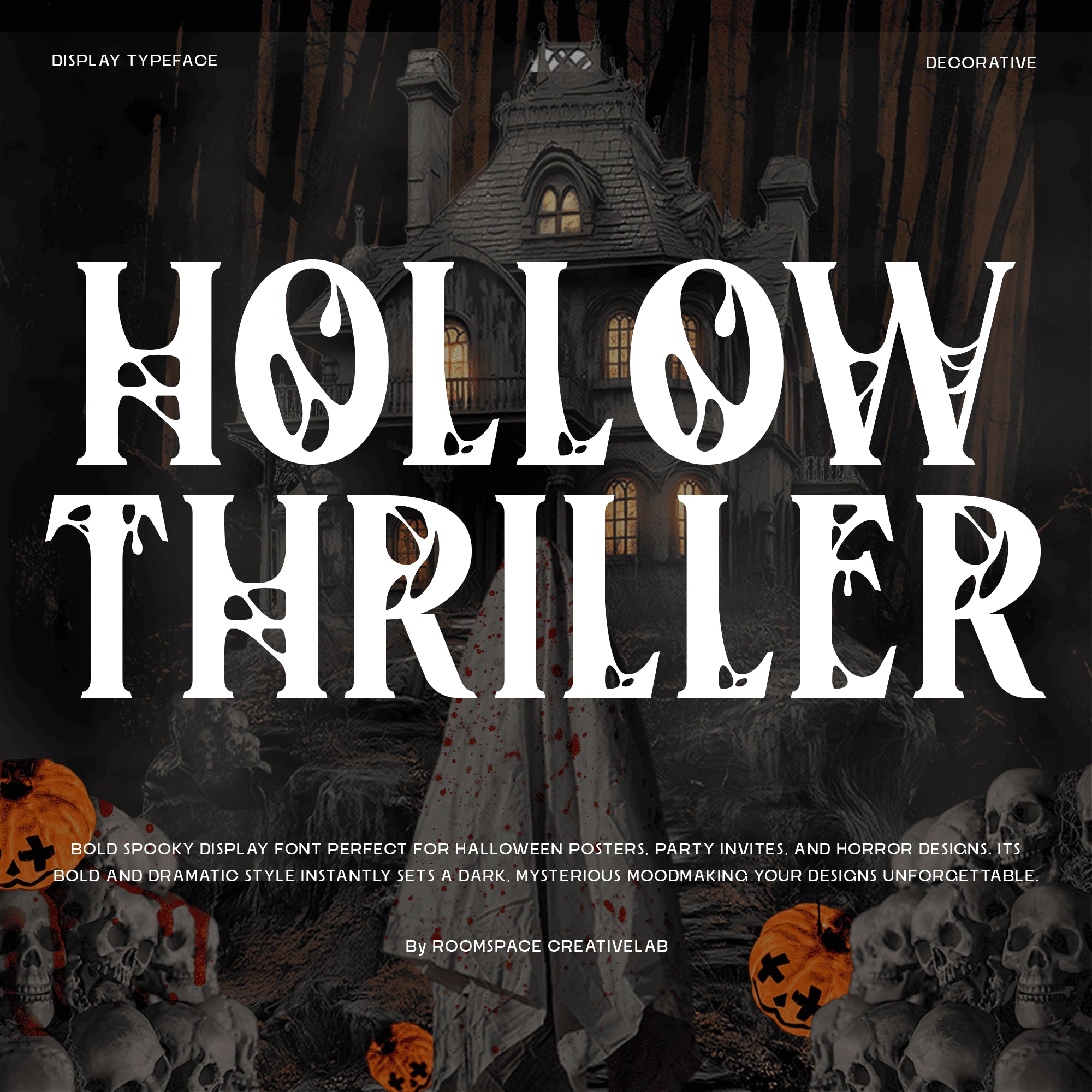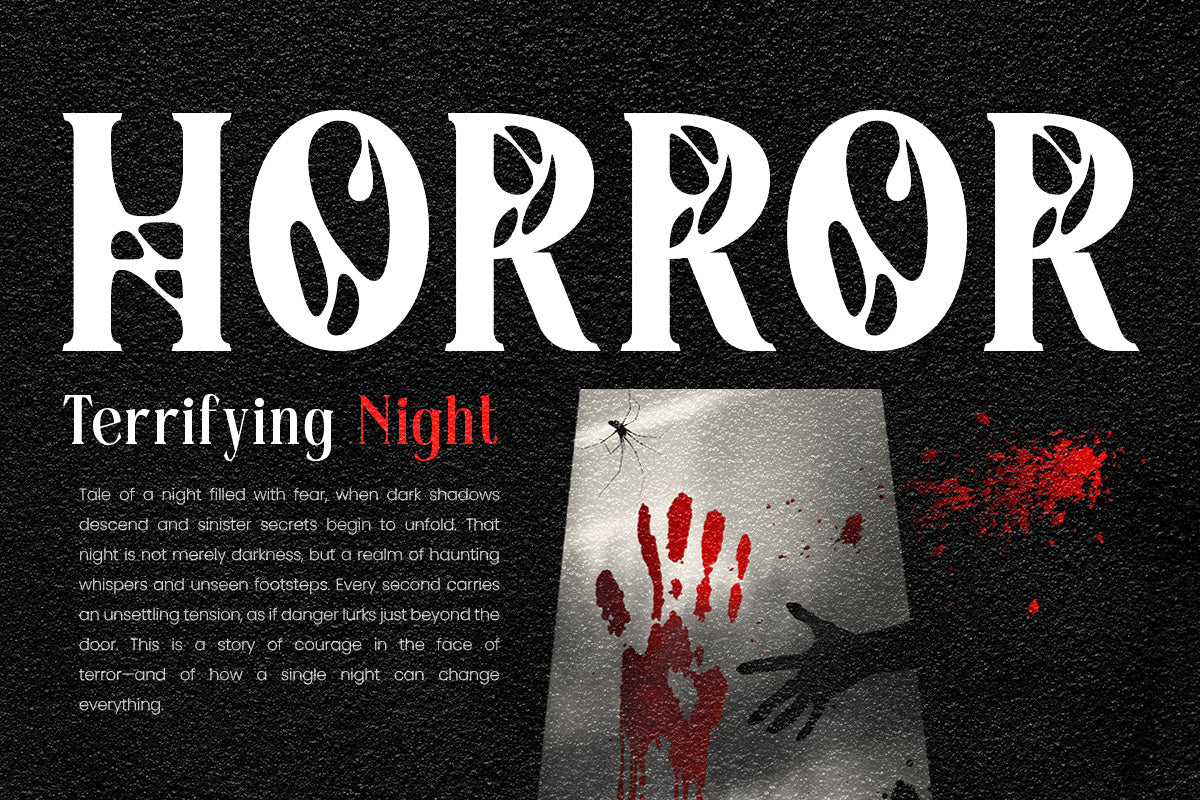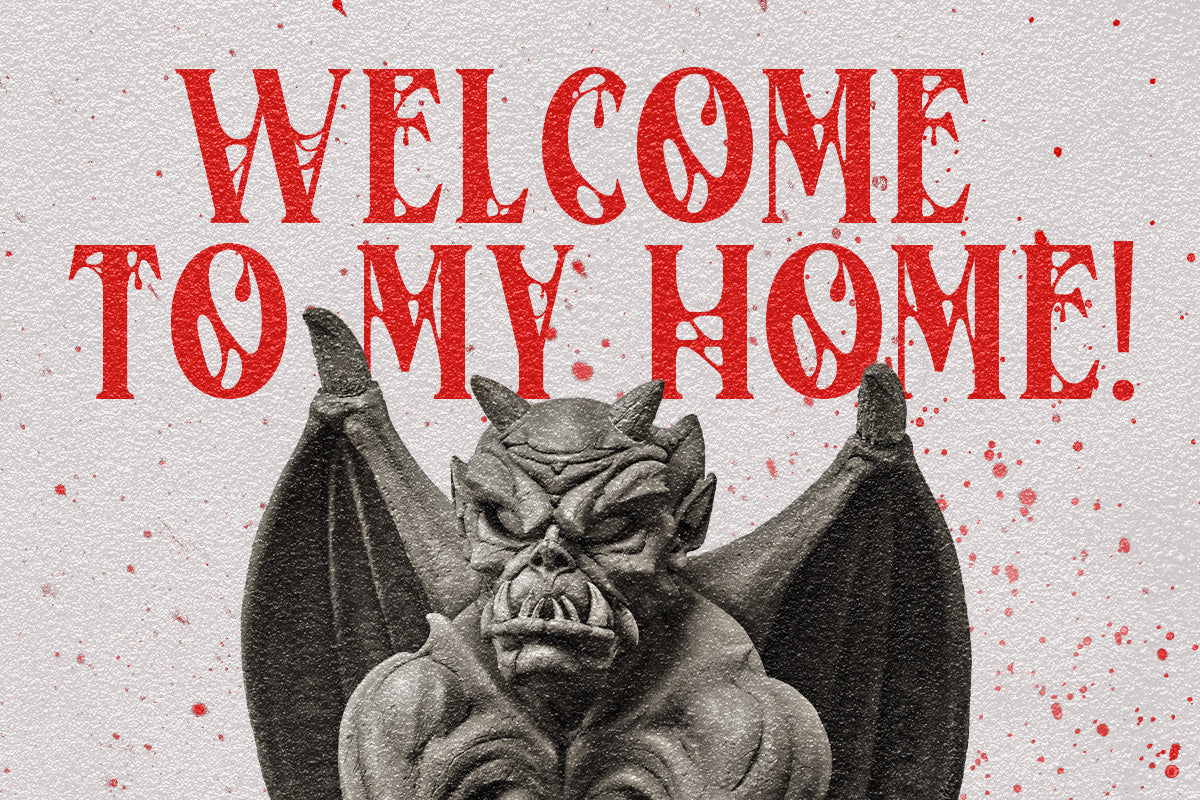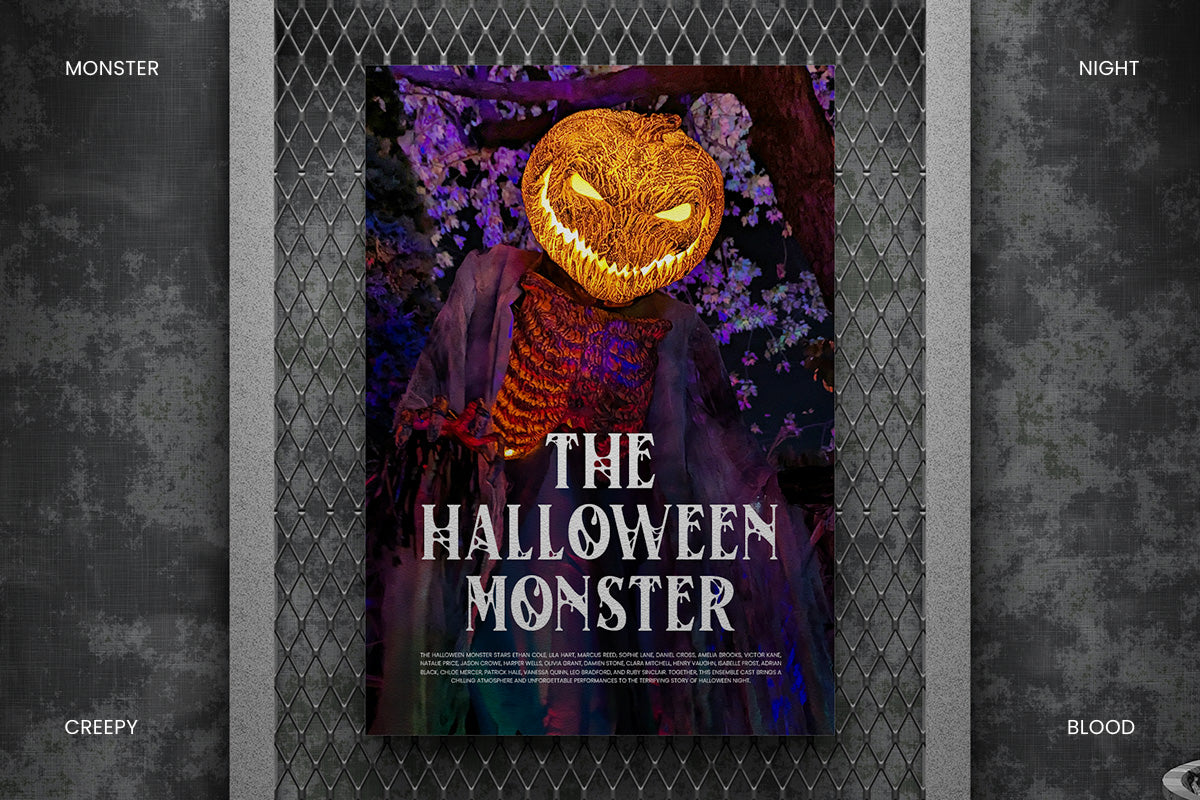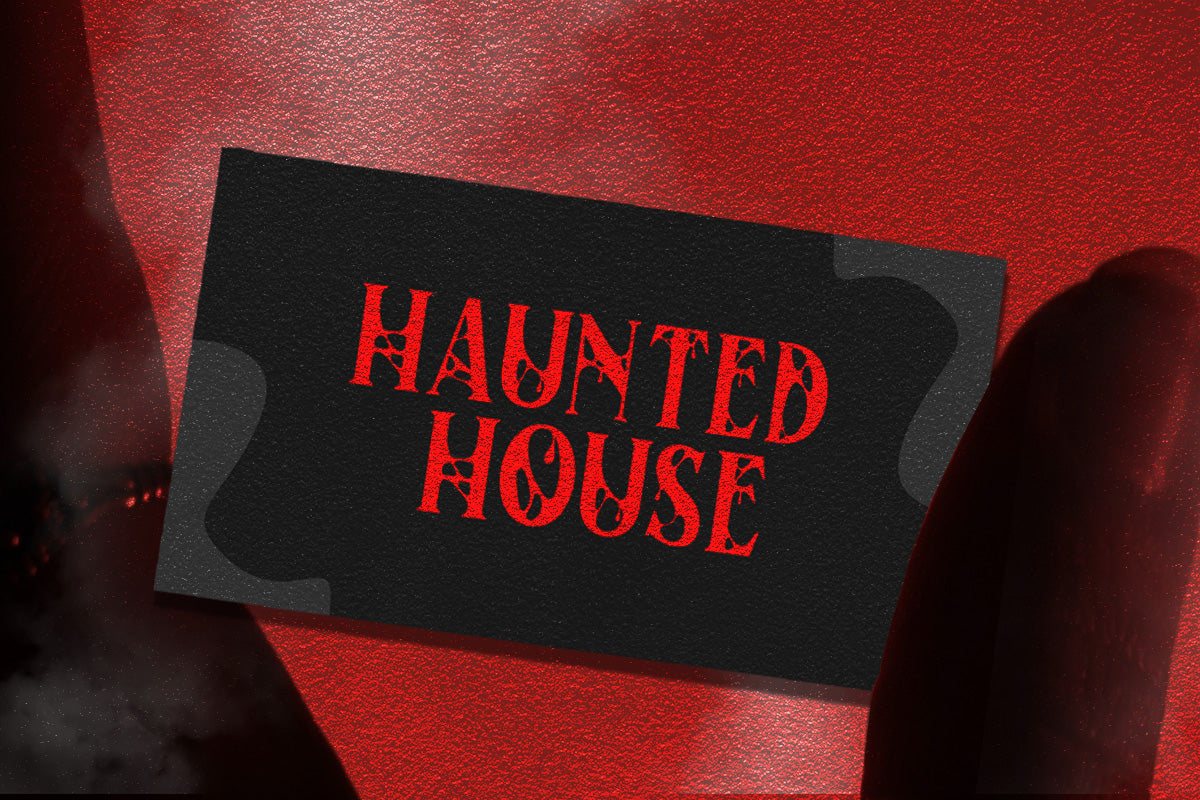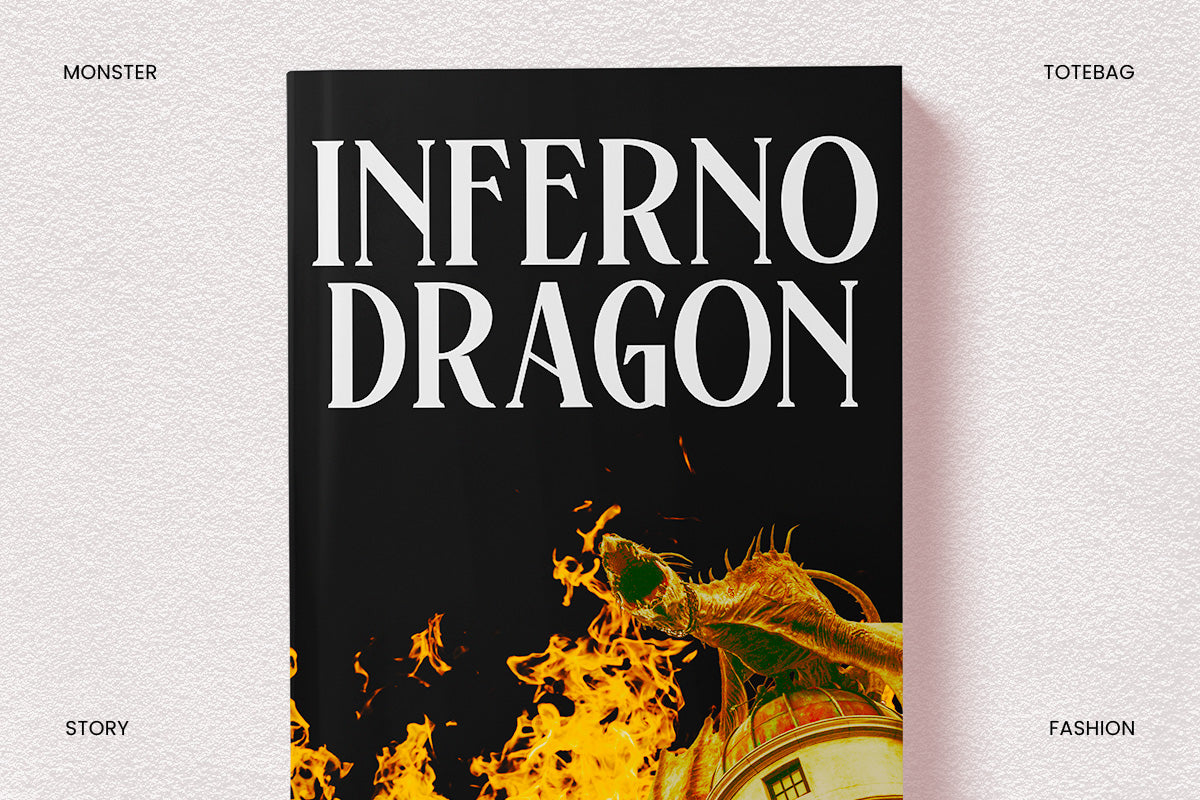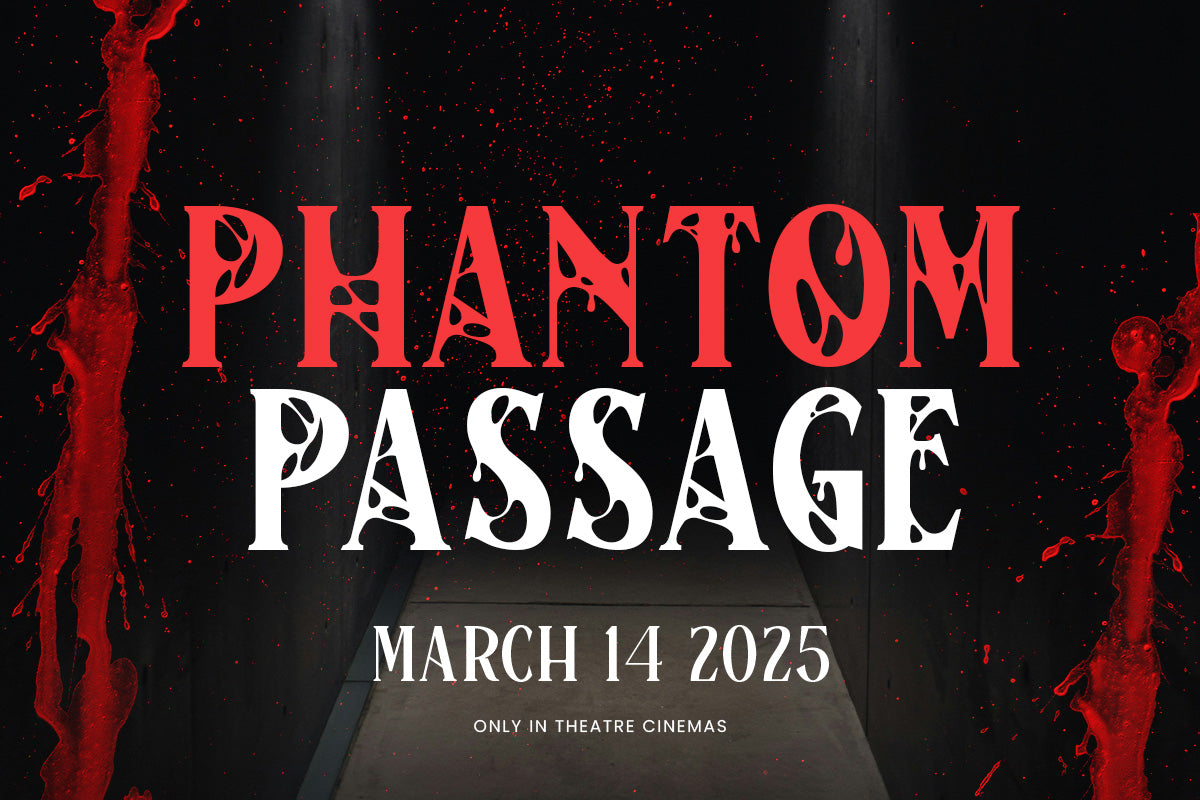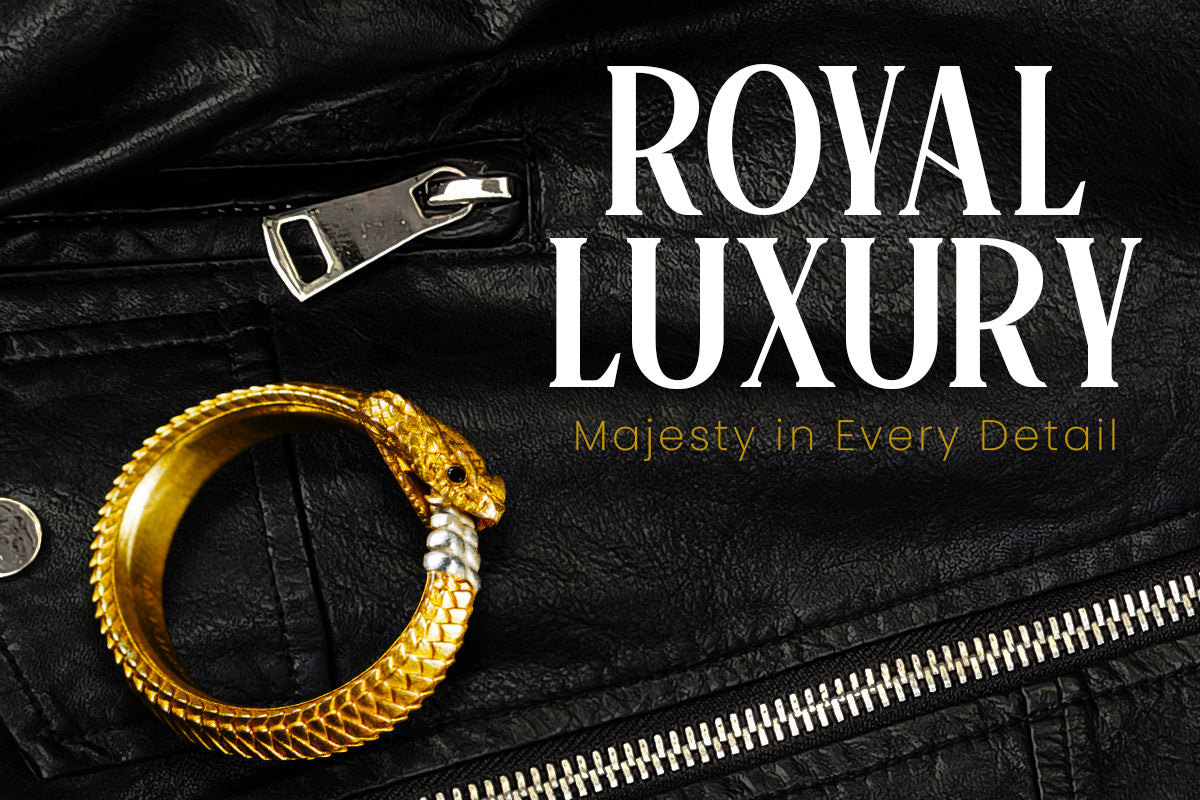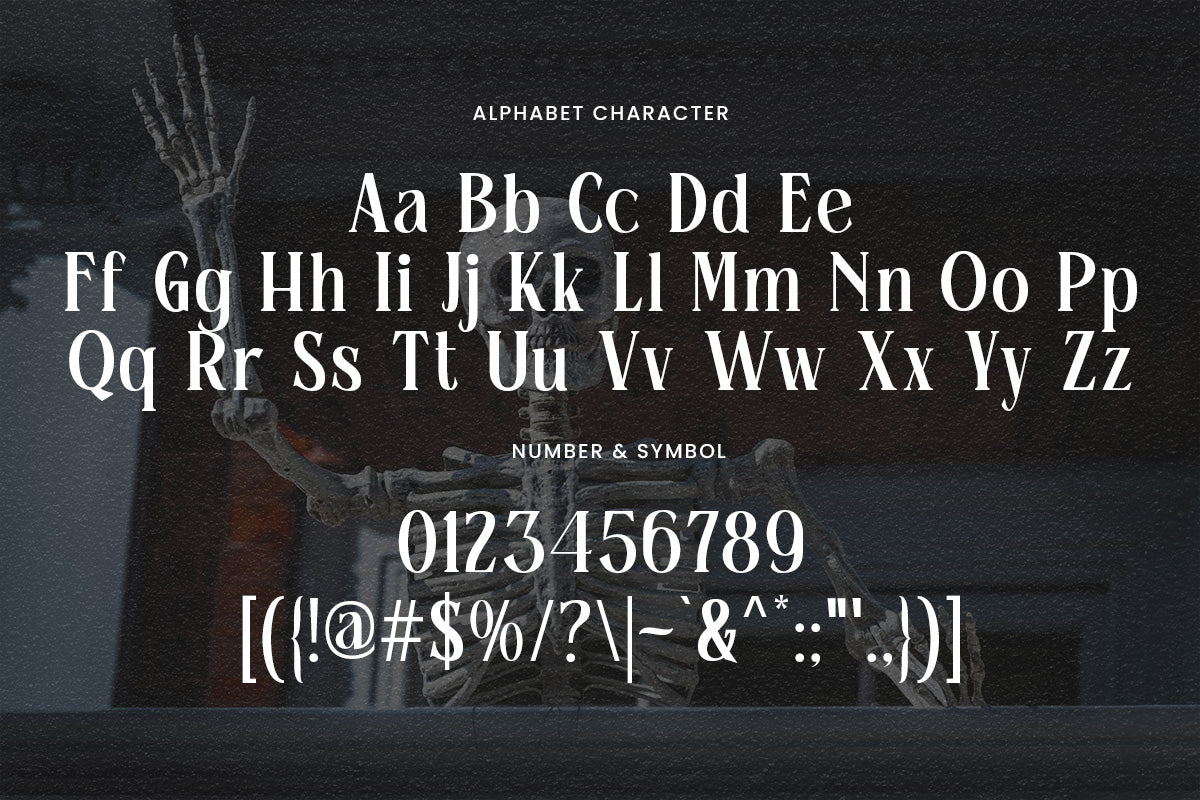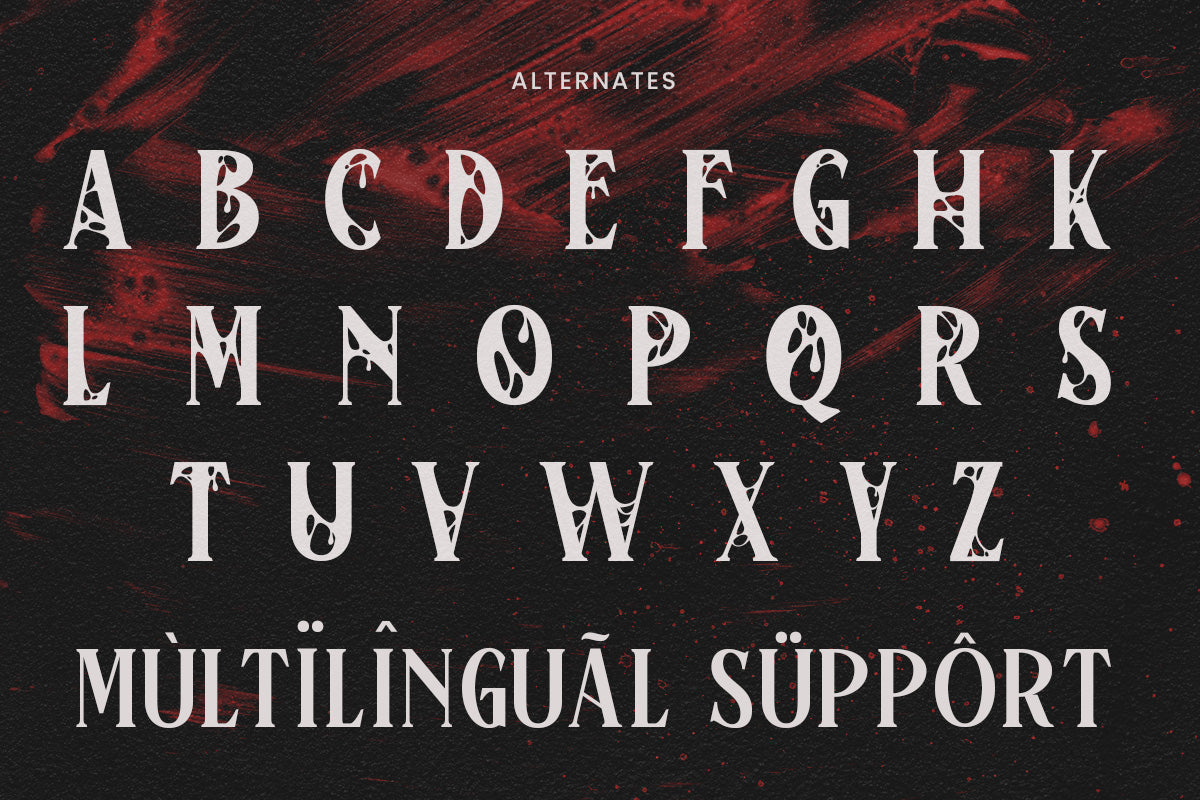
Hollow Thriller – Spooky Halloween Display Font
Hollow Thriller is a bold and haunting display typeface designed to deliver instant Halloween atmosphere through striking, eerie letterforms. Inspired by classic horror visuals and cinematic thrillers, this font captures the essence of mystery, fear, and dramatic expression making every word feel alive with suspense. Each character in Hollow Thriller is carefully crafted with sharp edges, distinctive cutouts, and thoughtfully balanced spacing to create a chilling yet polished appearance. While its design leans into the dark and spooky, the font maintains clarity and structure, ensuring your message remains impactful and readable across different formats and sizes.
Hollow Thriller is perfect for designers and creatives looking to set a strong horror mood in their projects. It works beautifully for Halloween posters, party invitations, horror movie titles, spooky branding, themed packaging, social media graphics, merchandise, and promotional materials. Whether used for bold headlines or atmospheric accents, the font brings drama and intensity to any composition.
Hollow Thriller is a bold display typeface designed for Halloween-themed projects, featuring sharp edges and distinctive cutouts for a spooky appearance. It includes regular and oblique styles, uppercase and lowercase letters, numbers, and punctuation, and is available in OTF, TTF, and WOFF formats, compatible with both PC and Mac.